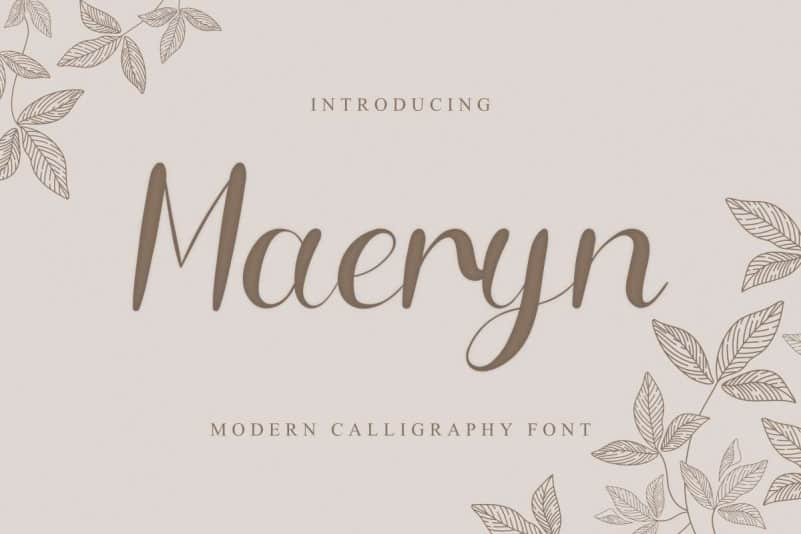
Maeryn Calligraphy Font
Maeryn simplifies elegance into one truly outstanding handwritten font. It maintains its classy calligraphic influences while feeling contemporary and fresh. This versatility will appeal to a wide range of crafty ideas, from letterheads and titles, to stationery.